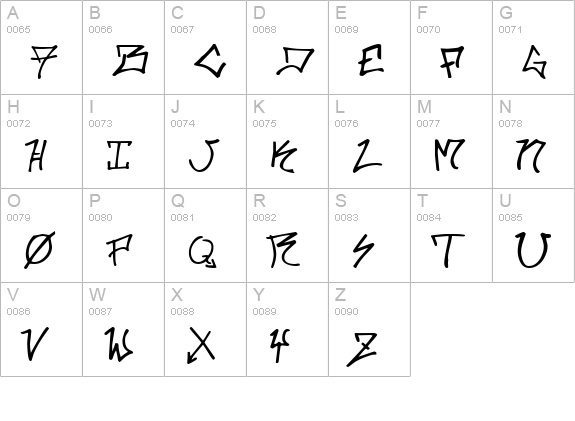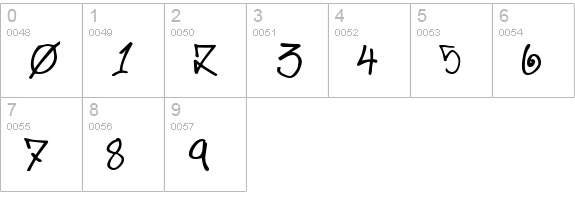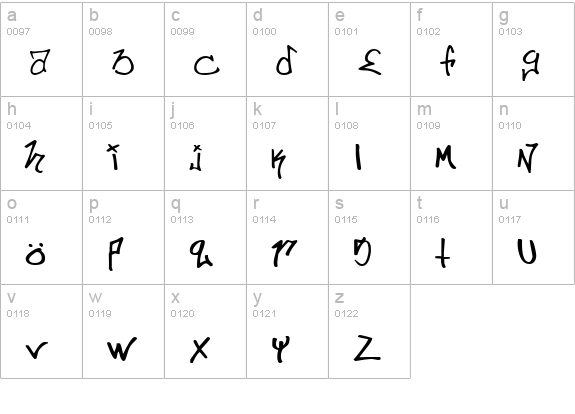
ill.skillz wildstyle Font Details
Introducing the Ill.Skillz Wildstyle Font, a dynamic and energetic typeface that will inject a burst of creativity into your designs. This font is perfect for those who seek to make a bold statement with their typography, as it exudes an edgy and urban vibe. With its intricate and captivating letterforms, Ill.Skillz Wildstyle Font truly embraces the spirit of street art and graffiti. Each letter is carefully crafted with a unique and stylish flair, offering a visually striking experience that captures attention and ignites imagination. But what truly sets Ill.Skillz Wildstyle Font apart is its versatility. Whether you want to add a touch of urban coolness to your posters, create eye-catching logos, or design captivating social media graphics, this font has got you covered. Its eclectic and expressive nature allows for endless possibilities, making it an essential tool for any designer seeking to make a lasting impression. And the best part? Ill.Skillz Wildstyle Font is freely available to download at FontsMarket.com. This means that you can instantly access this incredible typeface and start incorporating it into your projects without any restrictions. Whether you're a professional designer or a passionate hobbyist, this font empowers you to unleash your creativity without breaking the bank. So why wait? Take your designs to the next level with the Ill.Skillz Wildstyle Font. Download it for free at FontsMarket.com and witness the magic of this captivating and versatile typeface. Let your imagination run wild, and watch as your designs come to life with an urban edge like never before.